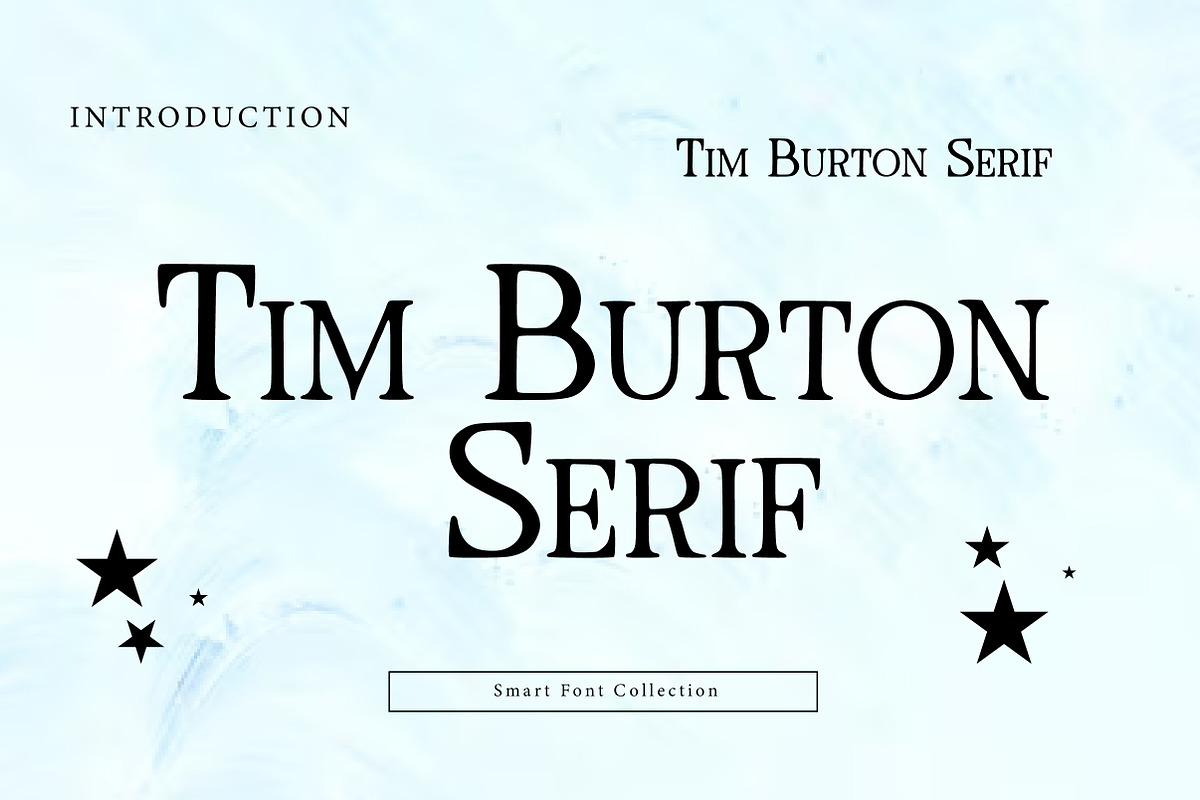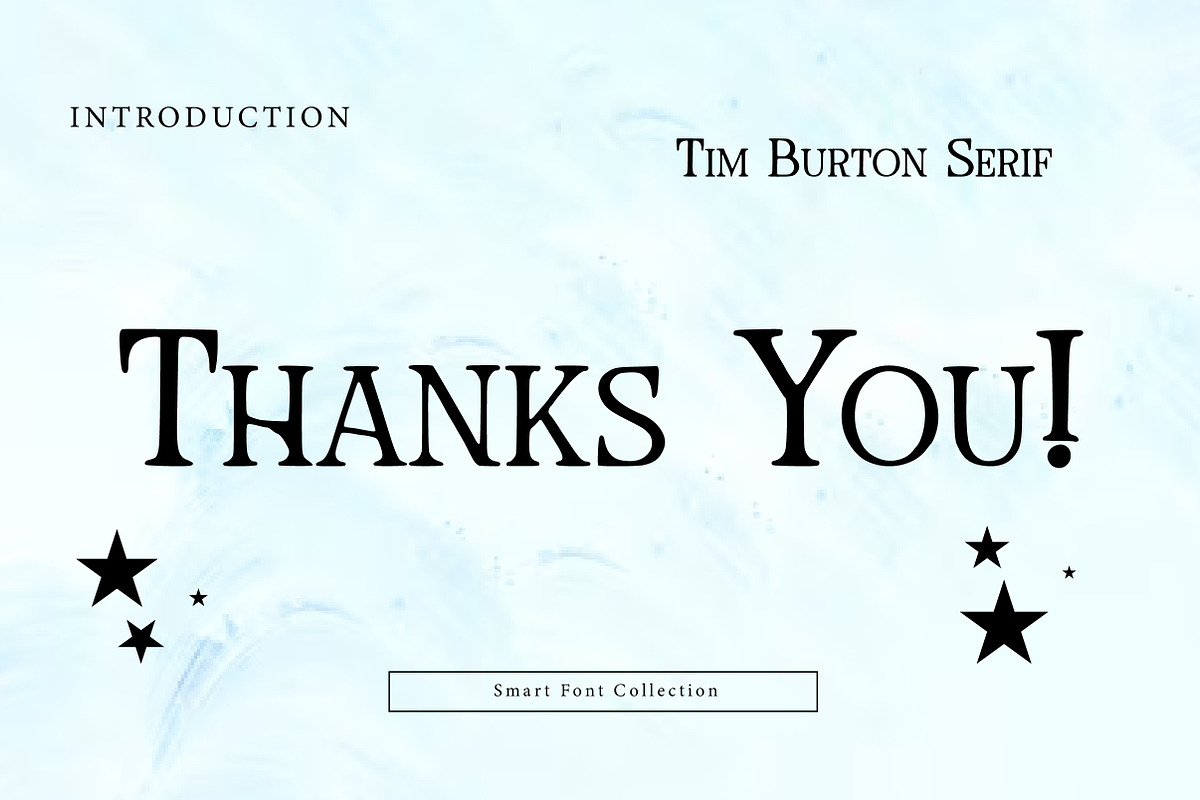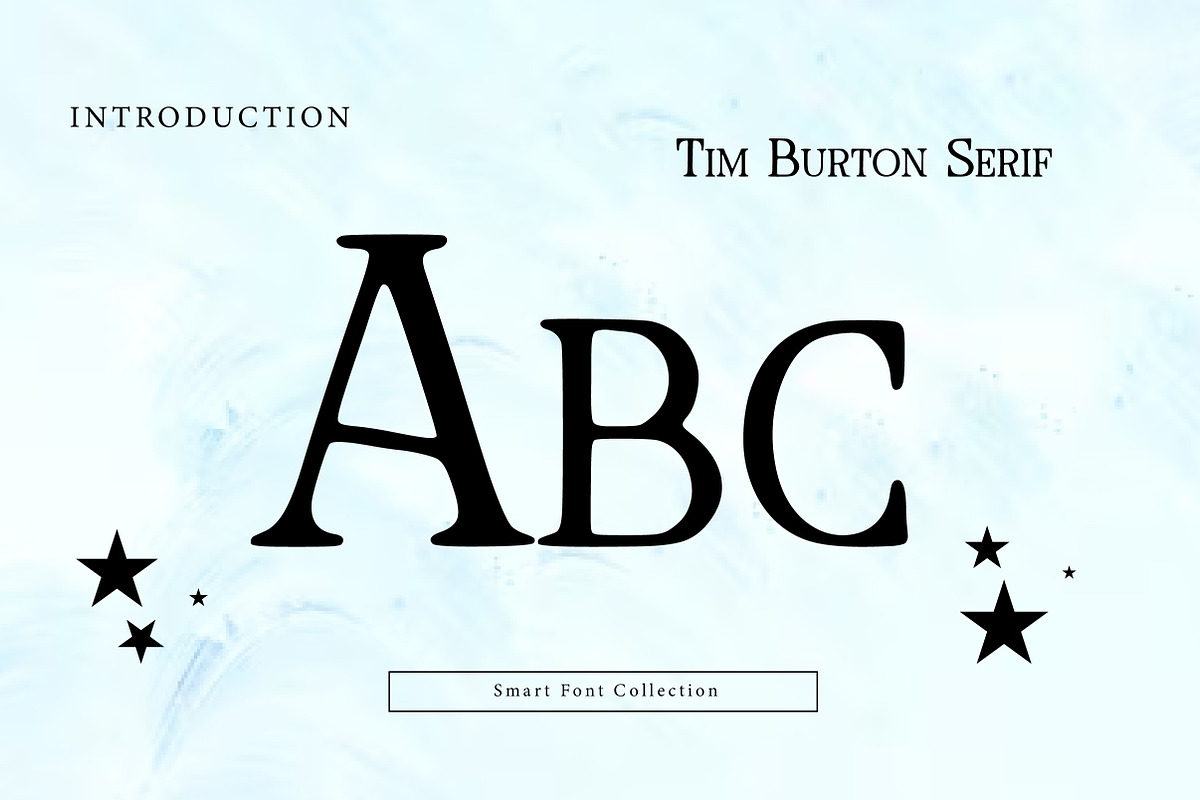
Tim Burton Serif
Tim Burton Serif is a quirky Gothic-inspired serif display font with a spooky, storybook personality. Featuring tall classic serifs, playful irregular details, and a slightly eerie charm, it’s perfect for Halloween projects, fantasy titles, book covers, movie-style posters, invitations, branding, and decorative headlines. Tim Burton Serif blends vintage serif elegance with dark whimsical character—ideal for designs that want to feel magical, mysterious, and unforgettable.